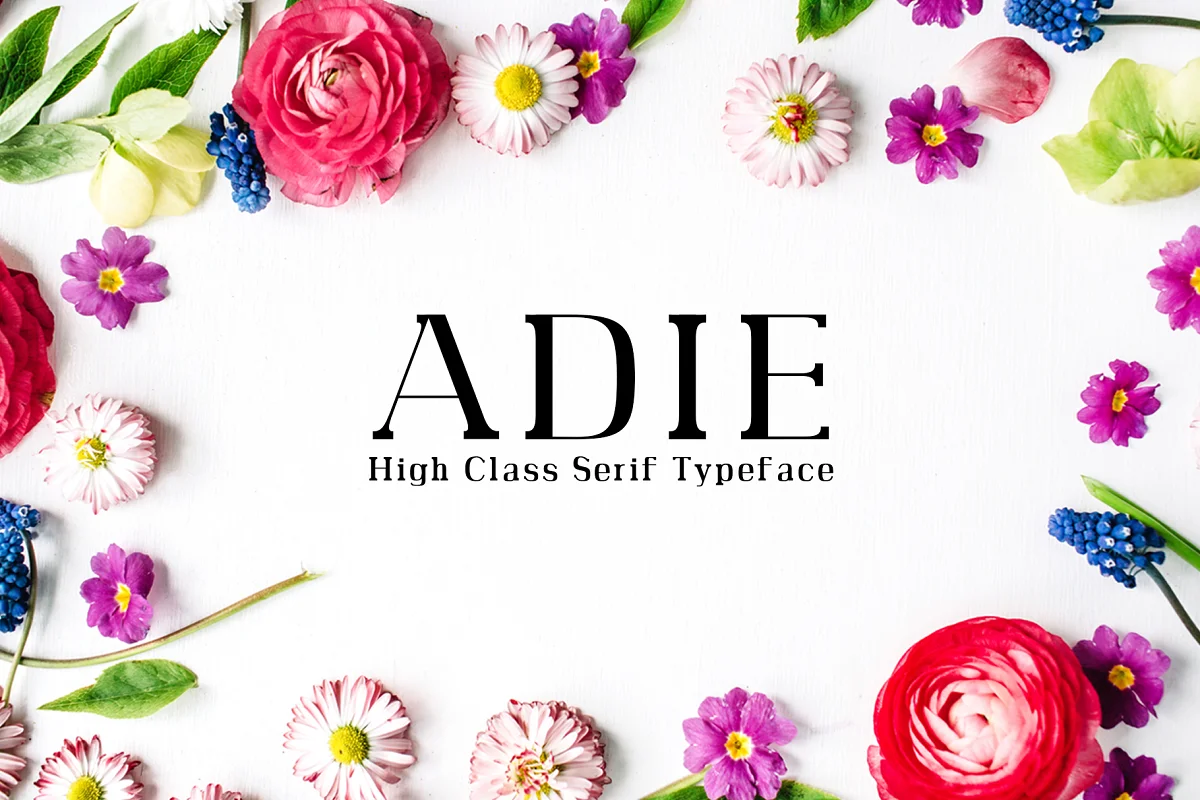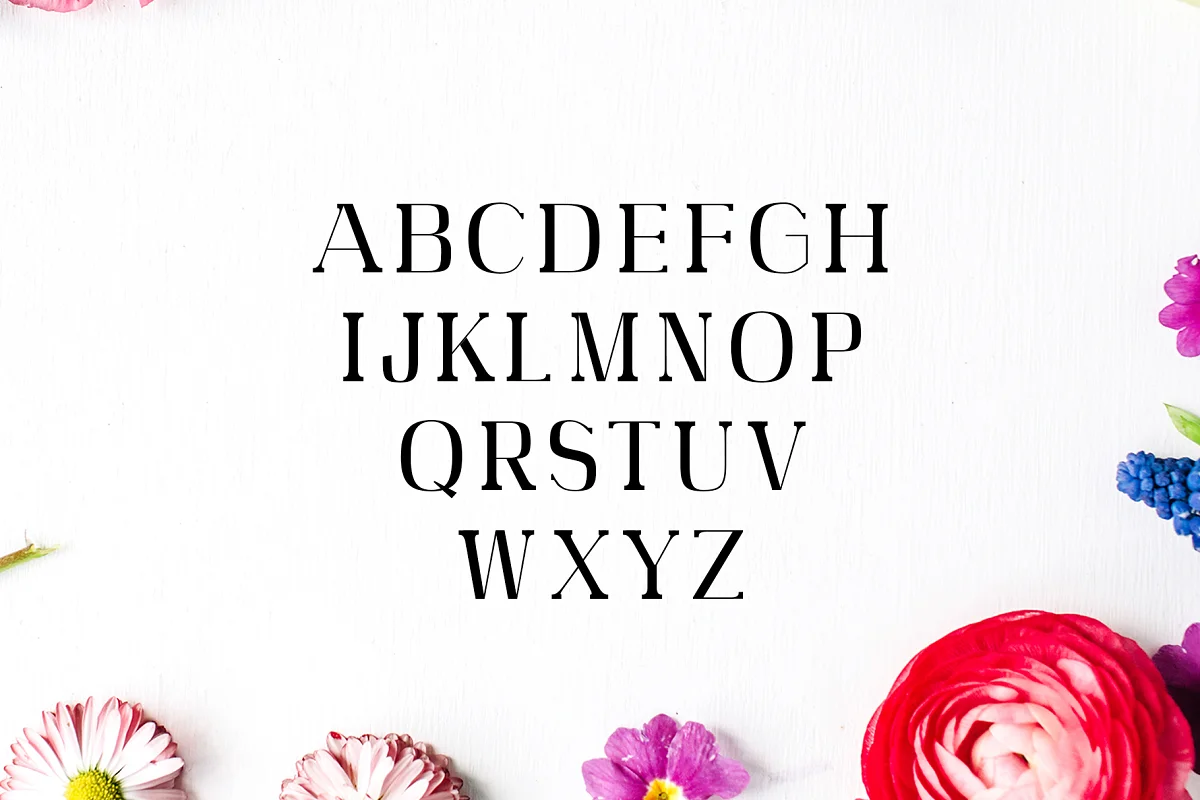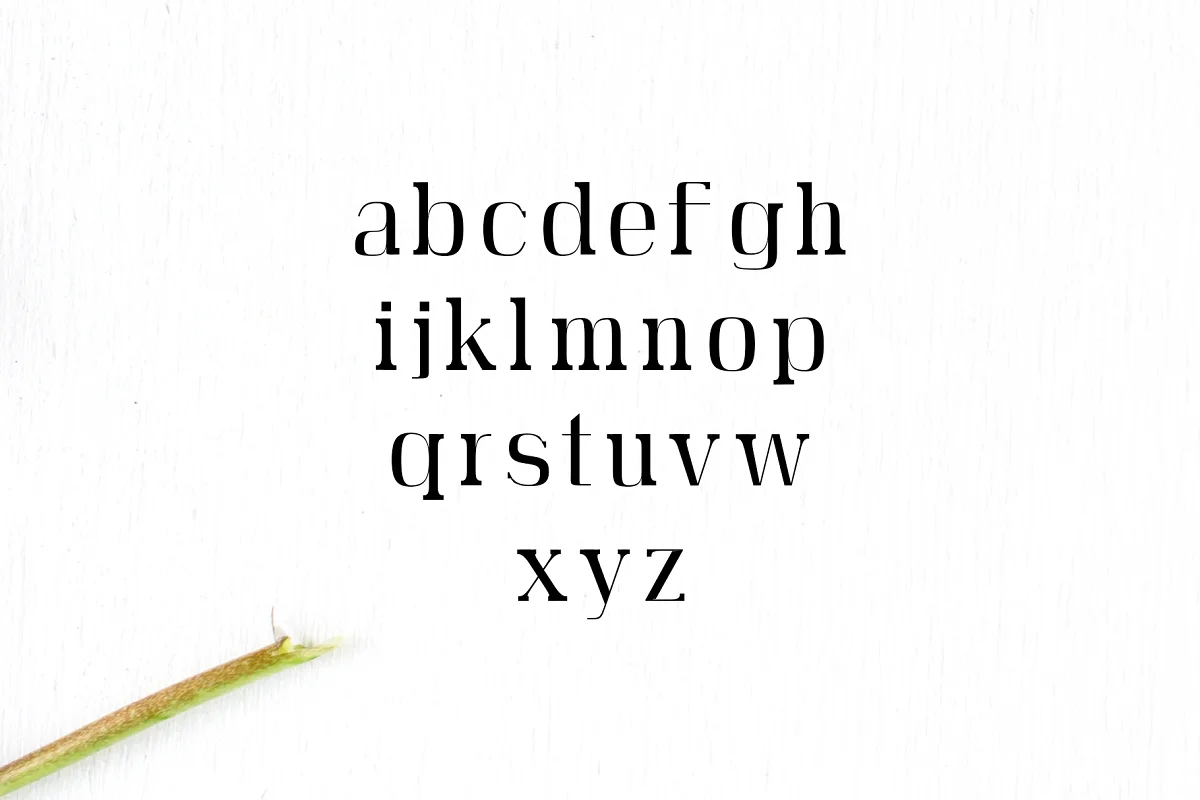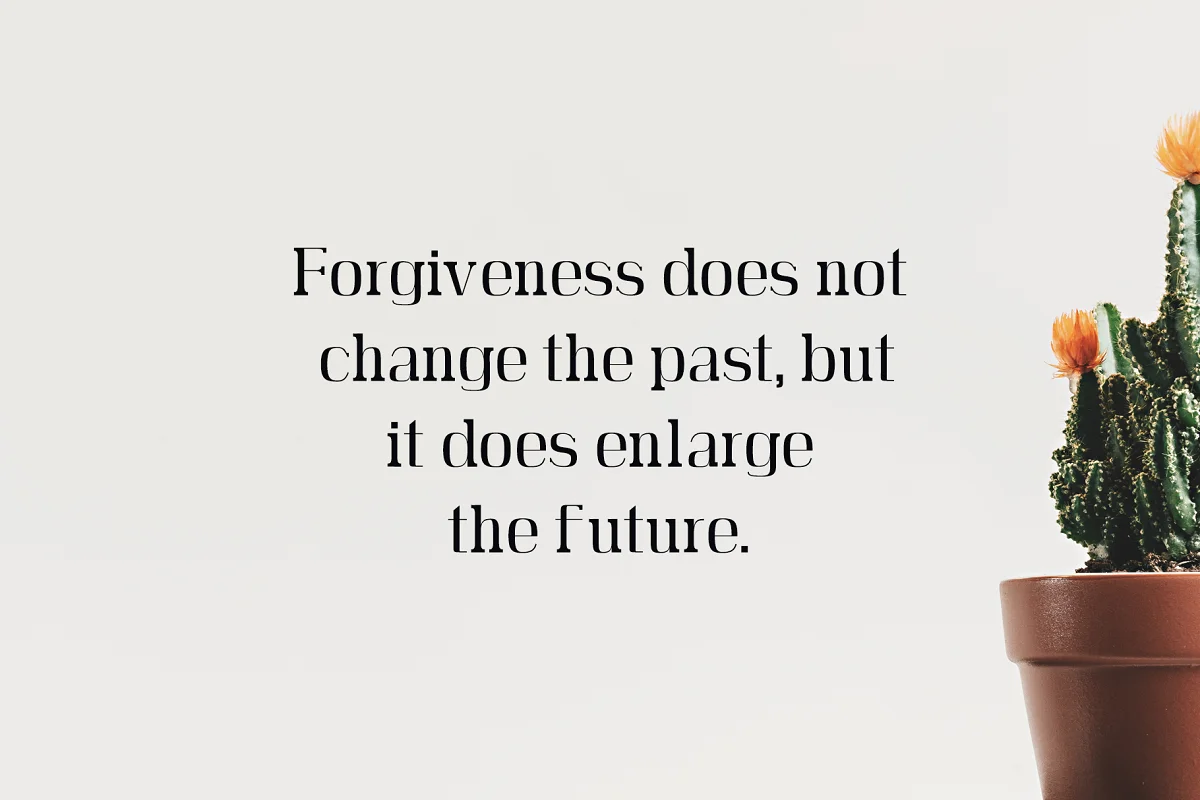
About the Adie High Class Serif 4 Font
Adie High-Class Serif Font Family is a decorative serif font family, which contains 4 weights and It features a unique and modern serif look and feels.
Perfect for gorgeous logos, titles, web layouts, and branding. It looks gorgeous in all caps with a wide-set spacing if you want to try a classy look, or beautiful on its own in capital and lowercase letters for something completely timeless.
- Font Weight: Regular, Light, Thin, and Bold
- Uppercase Multilingual Letters
- Lowercase Multilingual Letters
- Numbers & Punctuation
- Non-English Characters ( Latin Supplement + Latin Extended-A)